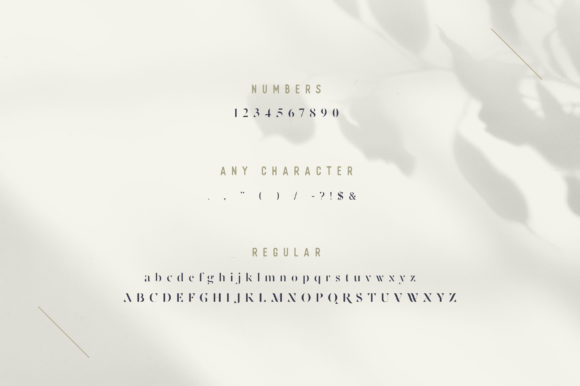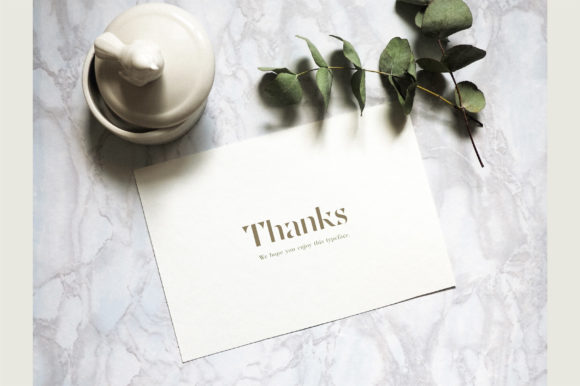
Introduction to Sernies Font
Remember that moment when you stumbled upon the perfect design element and your creative project just came to life? For many designers, that moment is all about finding the right font to elevate their work. And, we’re excited to introduce you to the Sernies Font, a bold and modern serif font that will take your crafting ideas to the next level.
As a valuable design resource, the Sernies Font is perfect for adding a touch of sophistication to your cards, branding, labels, and much more. Its high quality and versatility make it an excellent choice for designers looking to add a professional touch to their work. Whether you’re working on a project with a transparent background or need a font that stands out, the Sernies Font is an excellent option.
- Unique characteristics include its bold, modern aesthetic and extensive character set, making it perfect for a wide range of design applications.
Honest Review: Sernies Font
As a designer, I’m always on the lookout for high-quality design resources to elevate my creative projects. I recently had the chance to try out the Sernies Font, and I’m excited to share my honest review.
- ✨ Unique and modern design aesthetic that sets it apart from other fonts.
- ✨ High-quality typography that is perfect for headings and titles.
- ✨ Transparent background, making it easy to use with different backgrounds and designs.
- ⚠️ Not ideal for body text due to its modern and bold design.
Overall, I’m impressed with the Sernies Font, and I can see it being a great addition to any design project. The free download is a great bonus, and the transparent background makes it easy to use. However, the limited font styles and weights may be a drawback for some designers. If you’re looking for a modern and eye-catching font for your creative project, I’d definitely recommend checking out the Sernies Font.
Tips for Getting the Most Out of Sernies Font
Sernies Font is a versatile design resource that can be used in a variety of creative projects, including logos, brochures, and social media graphics. Its high-quality design and transparent background make it perfect for designers who want to create professional-looking designs without breaking the bank.